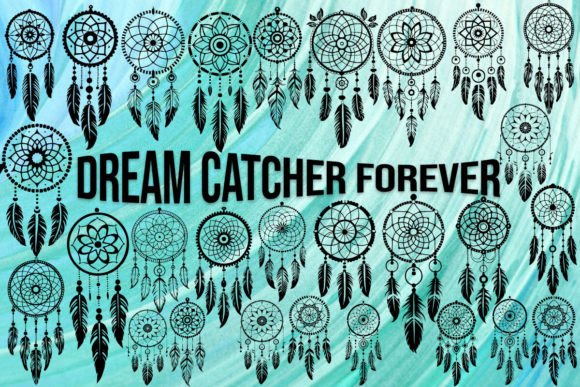
Introducing the captivating Dream Catcher Forever Font, brought to you by the brilliant mind of MOMAT THIRTYONE. This enchanting Dingbats Fonts collection is here to awaken your wildest imagination and capture eternal dreams in the most mesmerizing way. With 26 spellbinding letters and numbers ranging from 0 to 9, this font family weaves a mystic charm into every character, ensuring that your designs will forever hold onto creativity.
Imagine a world where your words transcend the ordinary, where each letter carries a hidden story, and where your message takes flight on the wings of inspiration. Dream Catcher Forever Font brings this ethereal realm to life, empowering you to unleash your artistic prowess like never before. Whether you're a seasoned designer or a curious creator, this collection is a must-have for those seeking to elevate their projects to new heights.
Delve into the captivating strokes of this font family, and you'll discover a symphony of emotions waiting to be unleashed. Each letter has been meticulously crafted to evoke a sense of wonder, enchantment, and limitless potential. From the delicate curves to the intricate details, every character whispers secrets of untapped creativity, beckoning you to explore uncharted artistic territories.
But Dream Catcher Forever Font is not just a mere collection of letters and numbers; it's a gateway to a world where dreams become tangible. Let your imagination soar as you infuse this font into your designs, transforming them into captivating works of art that leave the viewer spellbound. Whether you're designing a logo, creating a website, or crafting a poster, this font guarantees to captivate your audience and leave a lasting impression.